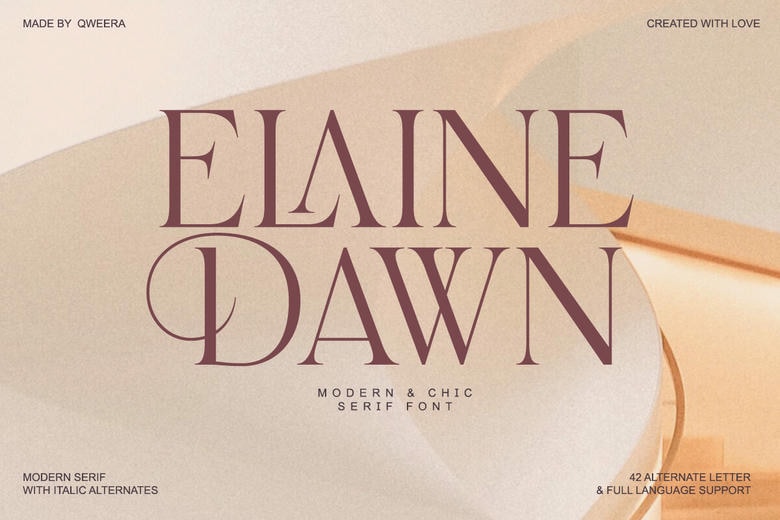
Elaine Dawn Font
Elaine Dawn is a contemporary luxury serif Typeface with exquisite contrast, graceful line and eternal chic. Elaine Dawn is a combination of modern contours and traditional frame, providing a clear but lavish typographic message. With its high stylistic content and slightest touches, it is constructed with its designers who require a sense of clarity, confidence, and high-end aesthetics.
Ideally adapted to the luxurious branding, style, and aesthetic narrative. Elaine Dawn is a classy and consistent designer symbol, editorial styling, and beauty advertisement.
Elaine Dawn Serif Font